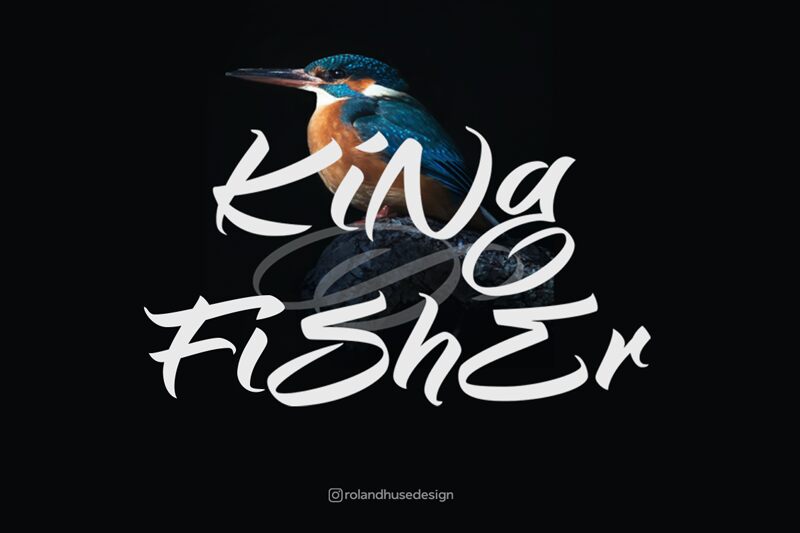
Kingfisher Demo Regular
Kingfisher is a brush marker script font. Experimental typeface for display and logo use, if you type All Caps, its more like comic book lettering, lowercase is a bold, brushy script. Mixing up lower and uppercase letters also gives you pretty nice results and unique visual impact. Please note that this is the demo version for personal use and trial only. The full version contains lots of alternates, ligatures, accented characters and symbols.